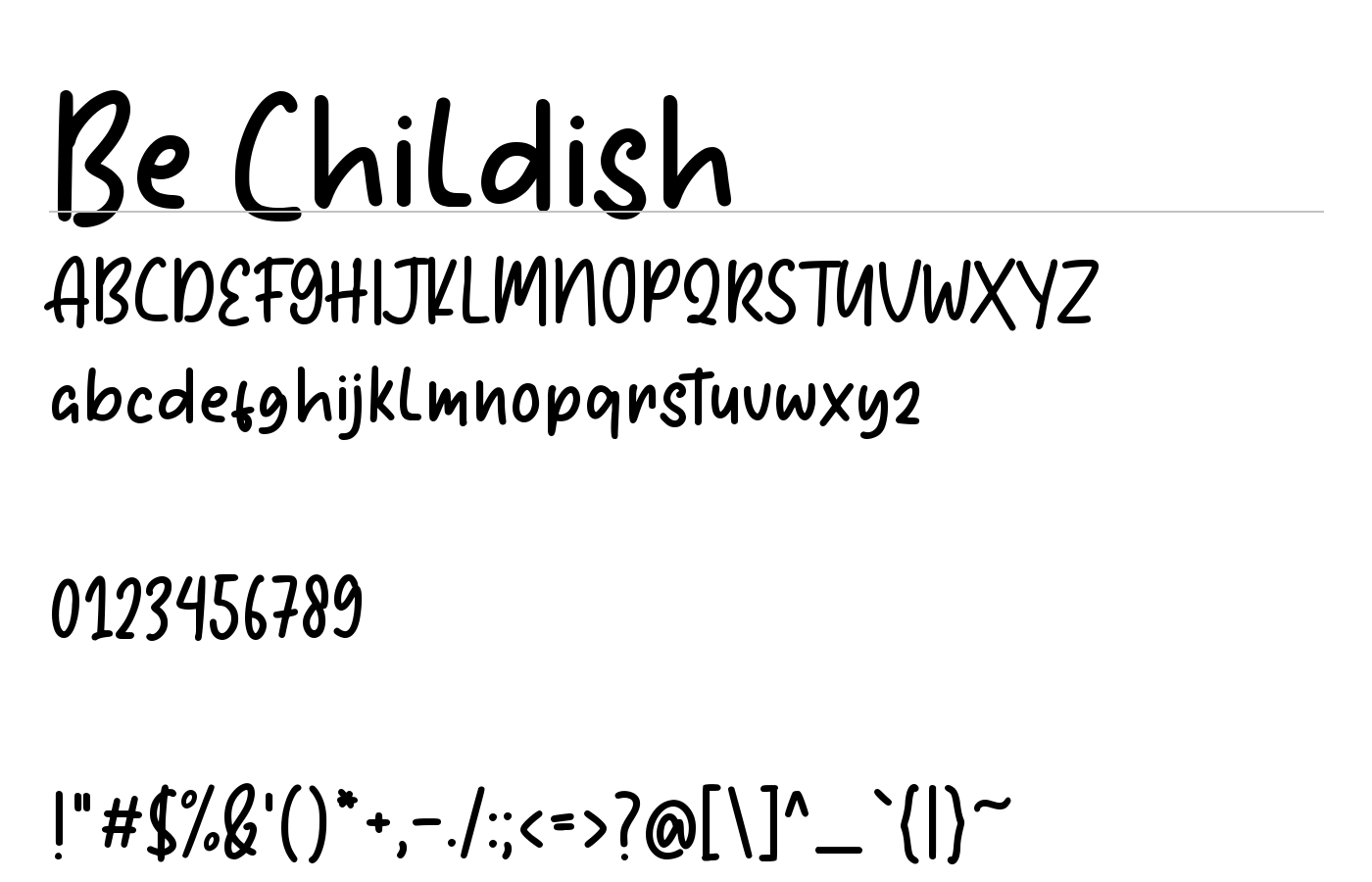
Be Childish is a playful, casual handwritten sans serif font that captures the friendly and informal spirit of childlike writing. With its smooth, rounded strokes, moderate x-height, and slightly condensed letterforms, it works well for lighthearted designs like kids’ products, invitations, and creative branding where a warm, approachable tone is desired. This font’s quirky style makes it ideal for headlines, packaging, and any project seeking a fun and cheerful personality.
Be Childish Font
About Be Childish Font